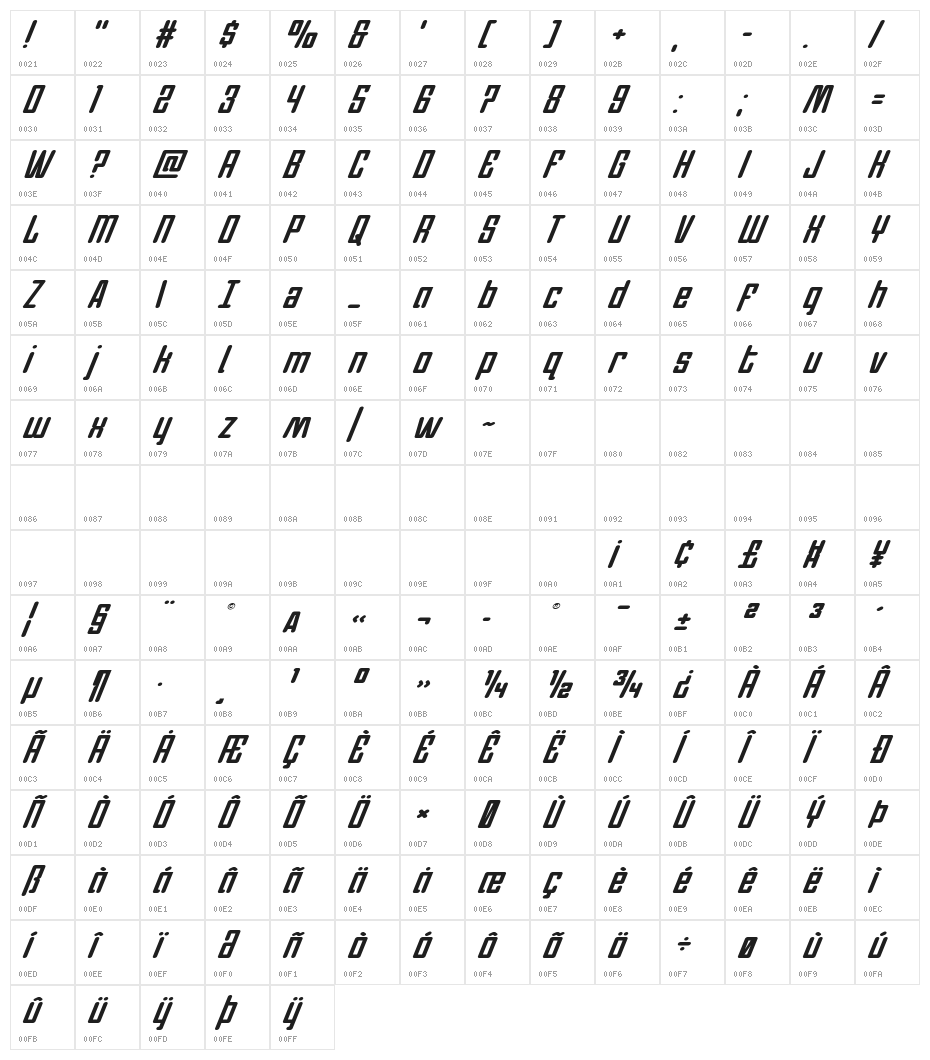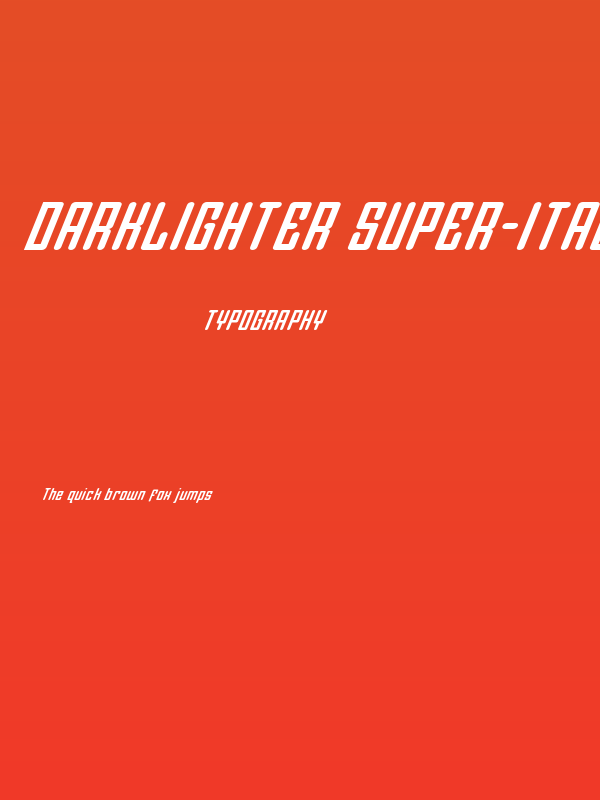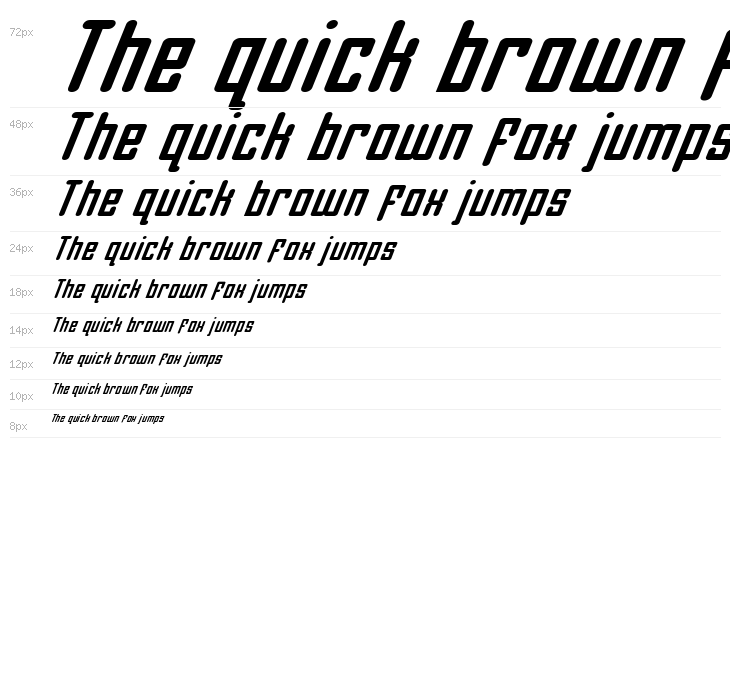
Darklighter Super-Italic Font
Darklighter Super-Italic Description
This font features a dynamic and modern style with a strong italic slant, giving it a sense of motion and energy. The characters are bold and condensed, with a consistent stroke width that provides a uniform appearance. The design is clean and geometric, with sharp angles and a futuristic feel. The uppercase and lowercase letters maintain a cohesive look, while the numerals and special characters complement the overall aesthetic. This font is well-suited for projects that require a bold statement and a contemporary edge.
| Proposed Projects | Ideal for sports branding, tech logos, dynamic posters, and modern web design. |